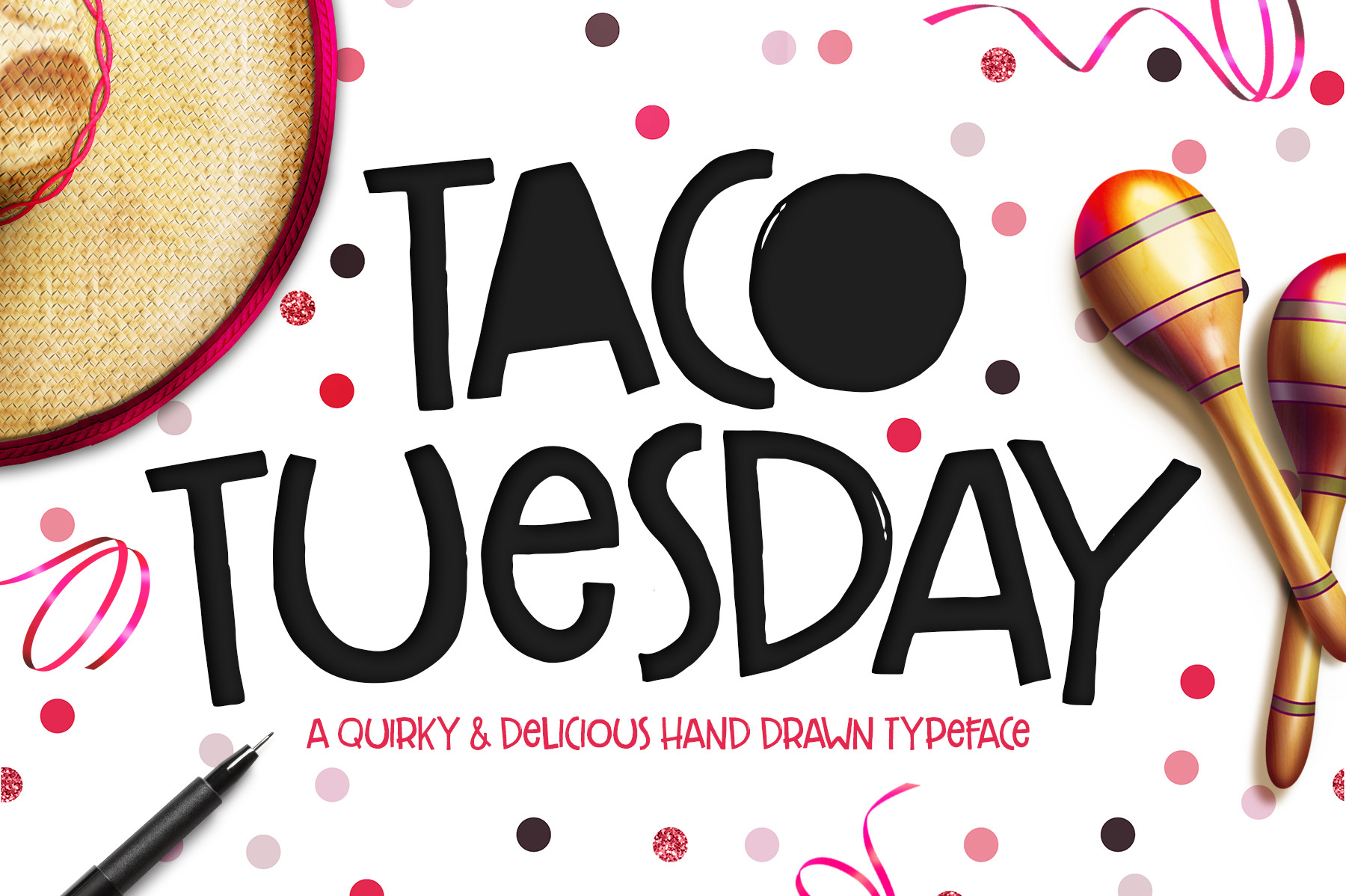
Taco Tuesday Typeface
Meet the adorable, hand-drawn font that looks great on greeting cards, sweet on mugs and works seamlessly on just about any hand lettered project that comes your way. :)
Taco Tuesday was hand-lettered with love after an evening of delicious tacos. Hence the name. ;)